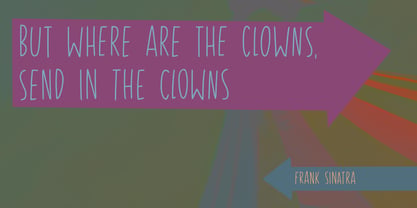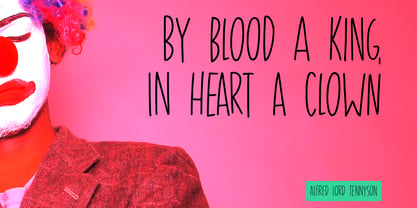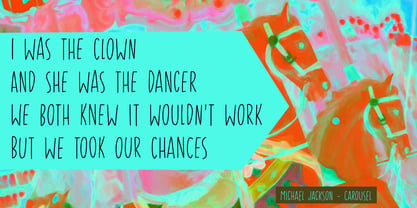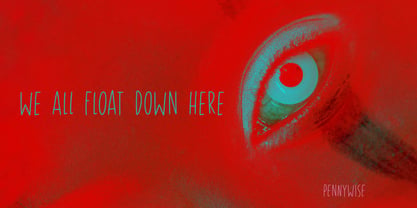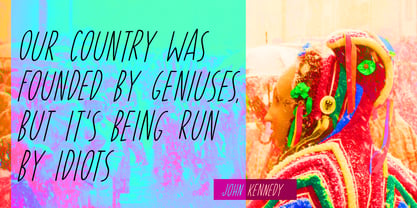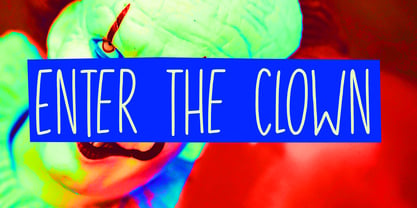
Enter The Clown Pro
por Hanoded
La familia tipográfica Enter The Clown Pro fue diseñada por David Kerkhoff y publicada por Hanoded. Enter The Clown Pro contiene 2 estilos. Más información sobre esta familia
I have had a lifelong dislike of circuses and clowns - especially the latter. I think they’re all evil and creepy!
There are a lot of clowns around these days, so it wasn’t hard to find a name for this font!
Enter The Clown is a handmade, all caps display font. It is tall and thin, comes with a set of alternates and full language support. I’m not fooling you!
Hanoded is run by Dutchman David Kerkhoff. His fonts are a mishmash of styles, as he just creates whatever pops into his head. You will find a lot of brush fonts in his collection, as his favourite tools are brushes and Chinese ink, with cartoon style fonts and script fonts complementing his repertoire. Aside from making fonts, David occasionally guides tours in far-flung places, renovates his '30's house and tries reasoning with his wife and (teenage) kids. Not an easy task!